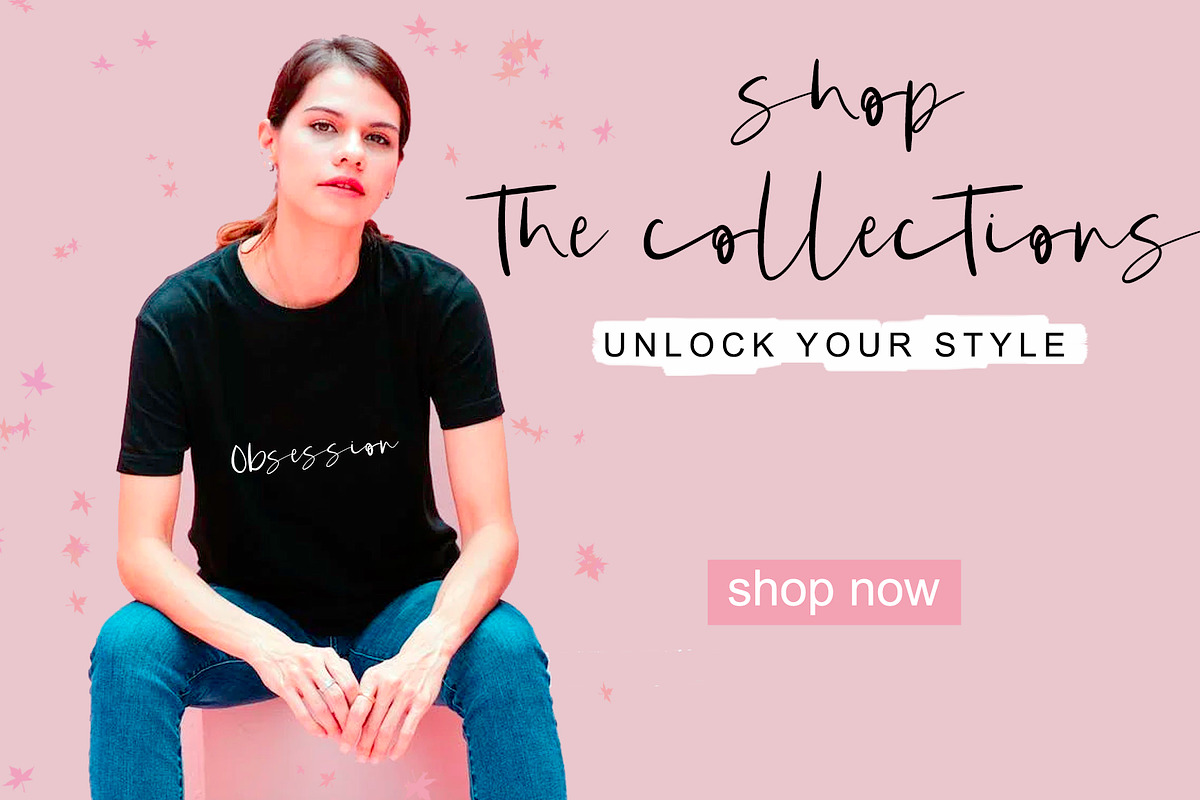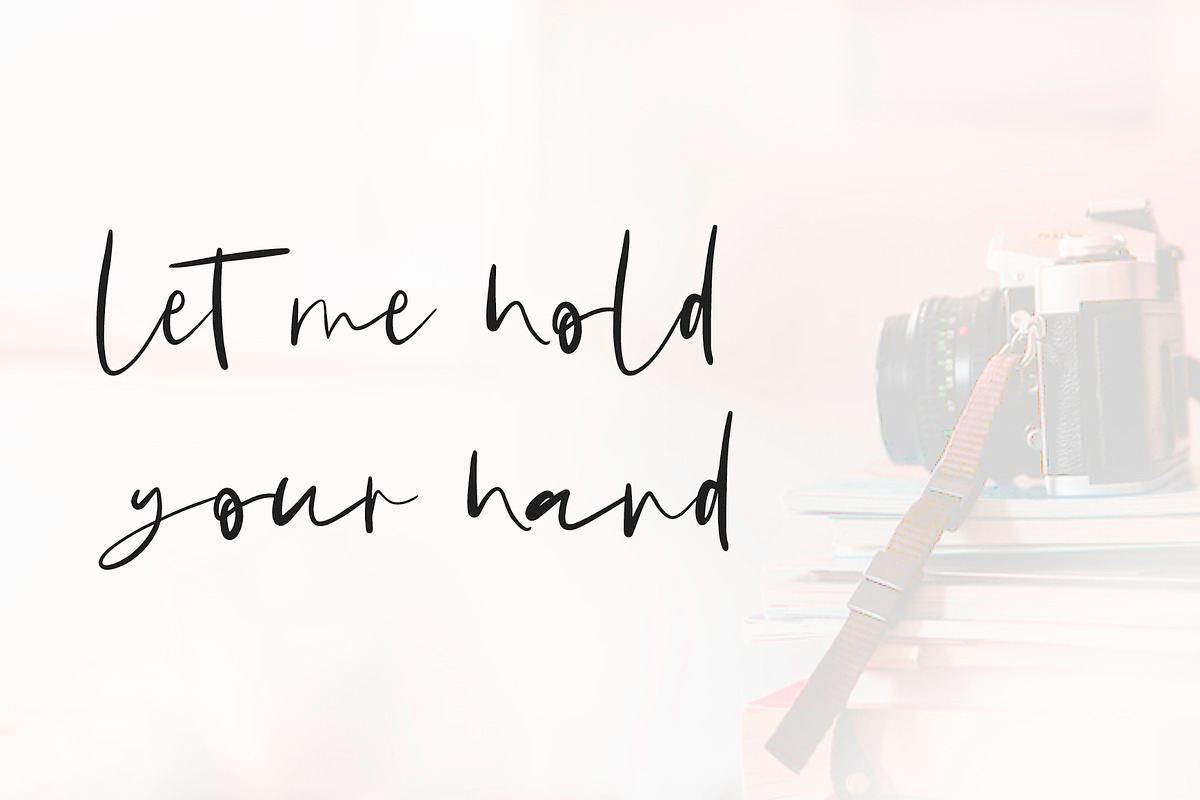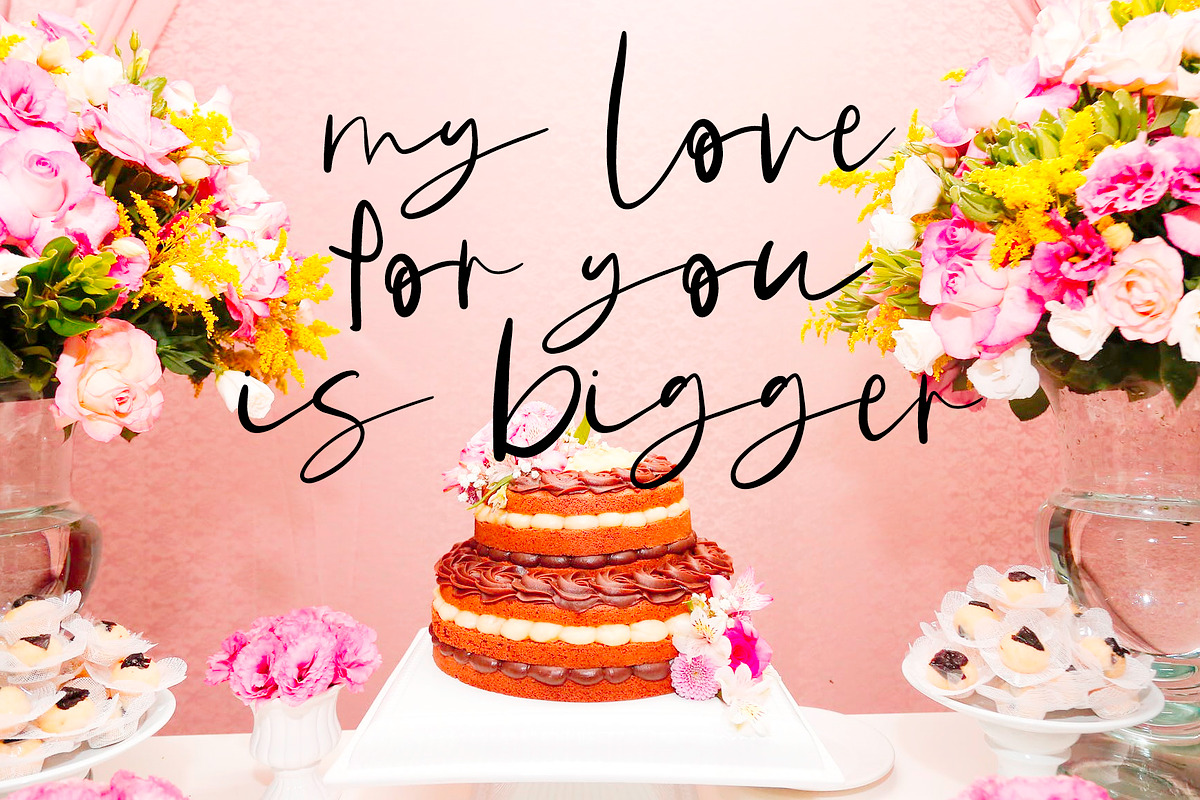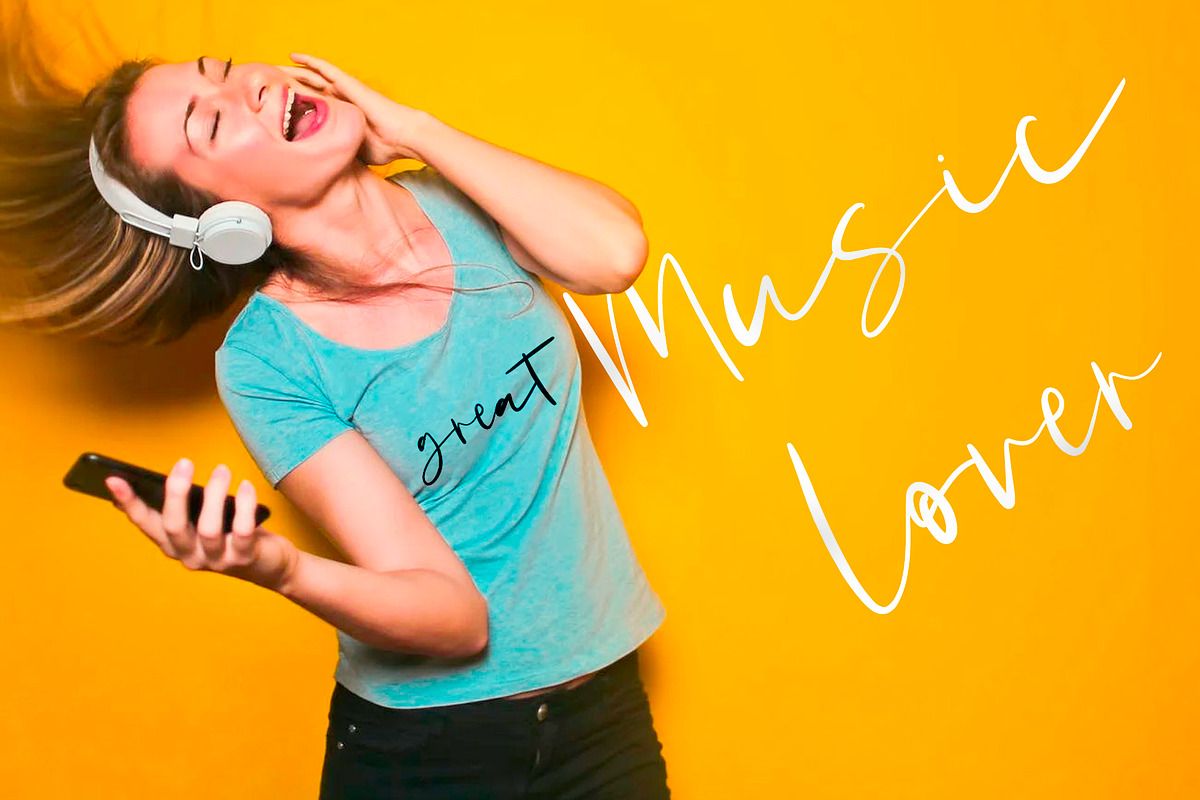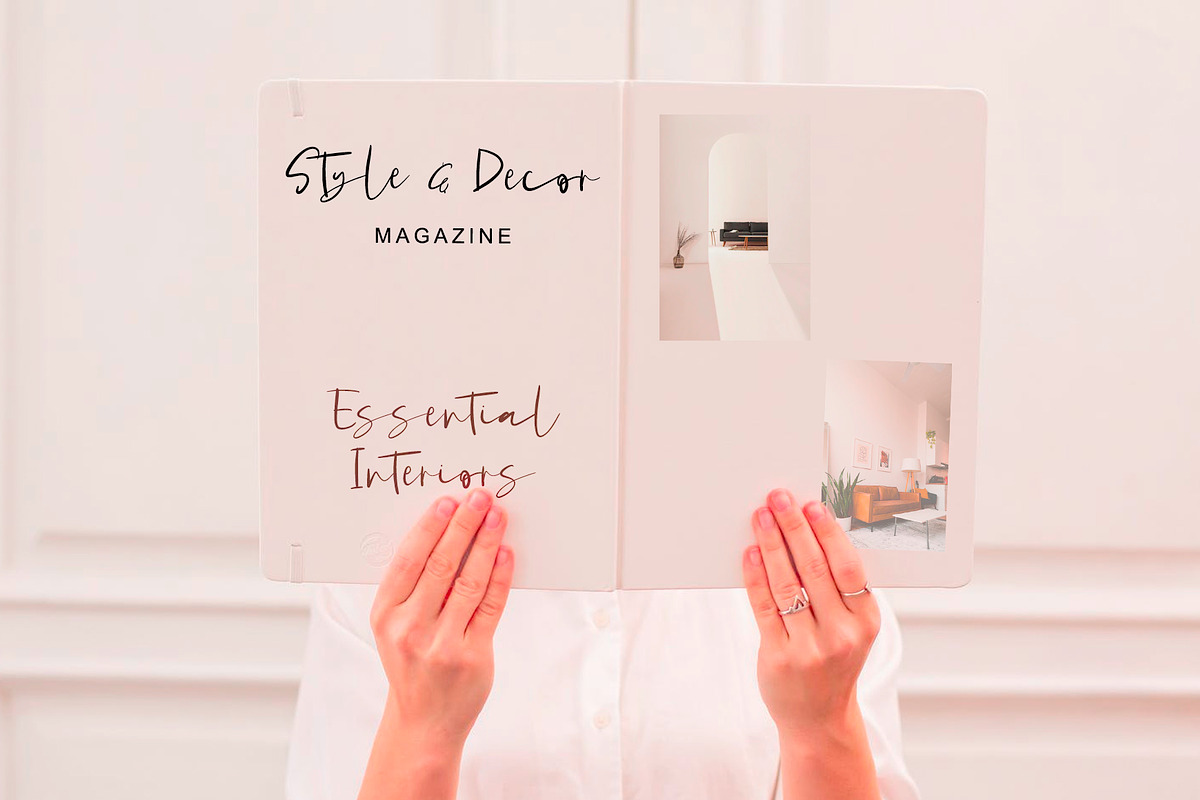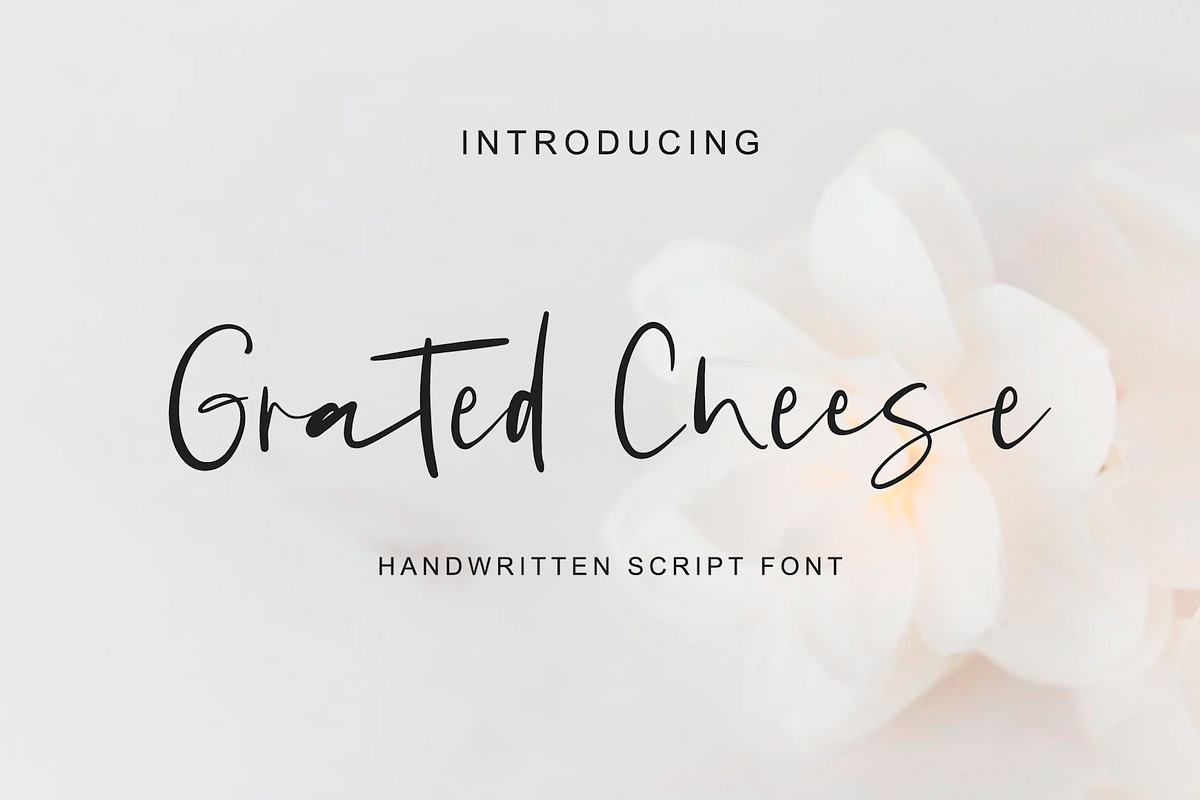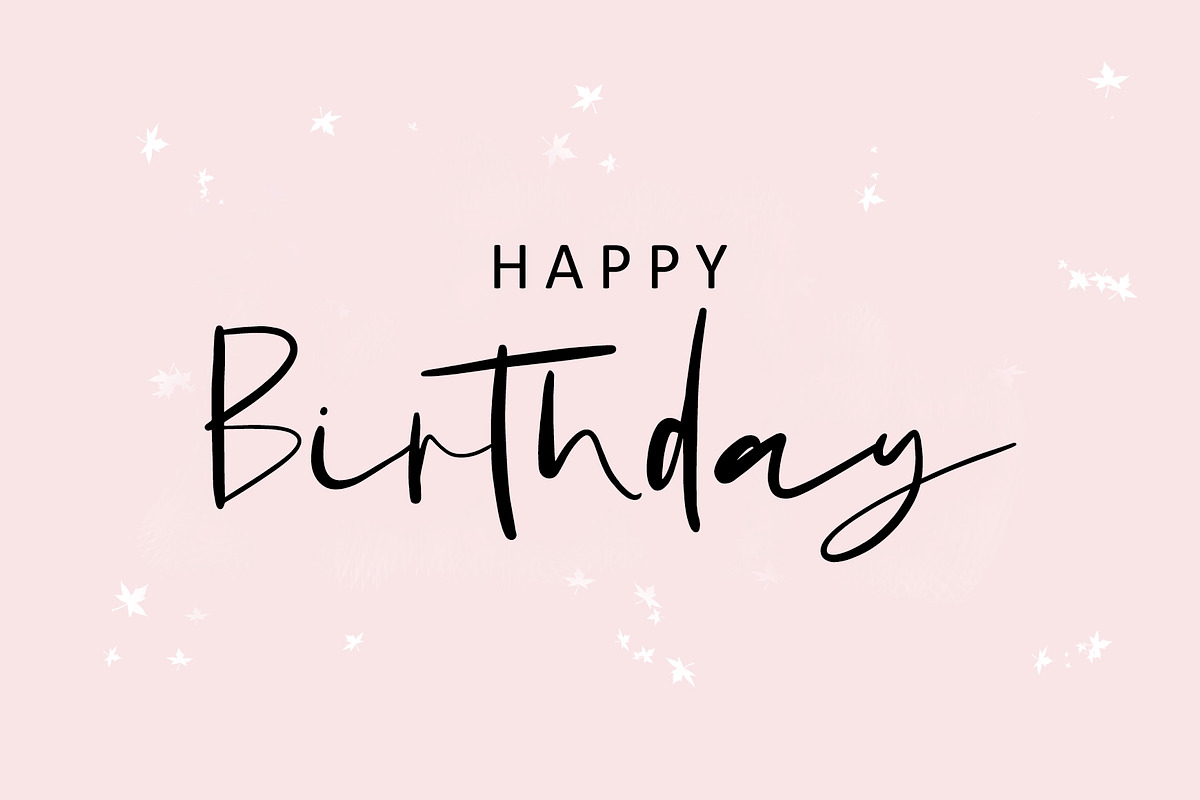
Grated Cheese | Handwritten Font
Grated Cheese is a thin lettered and graceful script font. Fall for its ravishing style and use it to create gorgeous wedding invitations, beautiful stationary art, magazines, Greeting Card, logos, eye-catching social media posts, and much more! and can be combined with various types of serif fonts to enhance the project you want to work on.